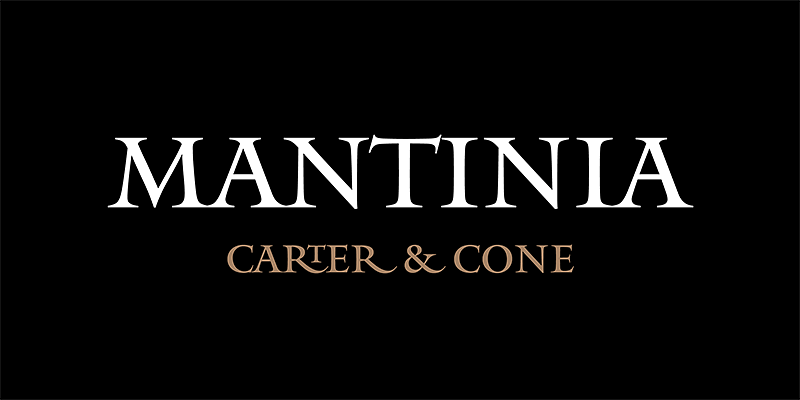
Mantinia Font Free Download is a classical serif display typeface inspired by ancient Roman inscriptions and Renaissance lettering. With its high-contrast strokes, elegant proportions, and distinctive chiseled look, Mantinia is ideal for book covers, historical themes, museum branding, classical music posters, and sophisticated editorial design.
Mantinia evokes a timeless and scholarly feel, combining sharp serifs with a strong vertical emphasis. It’s best used at large sizes, where its fine details and inscriptional character can truly shine.